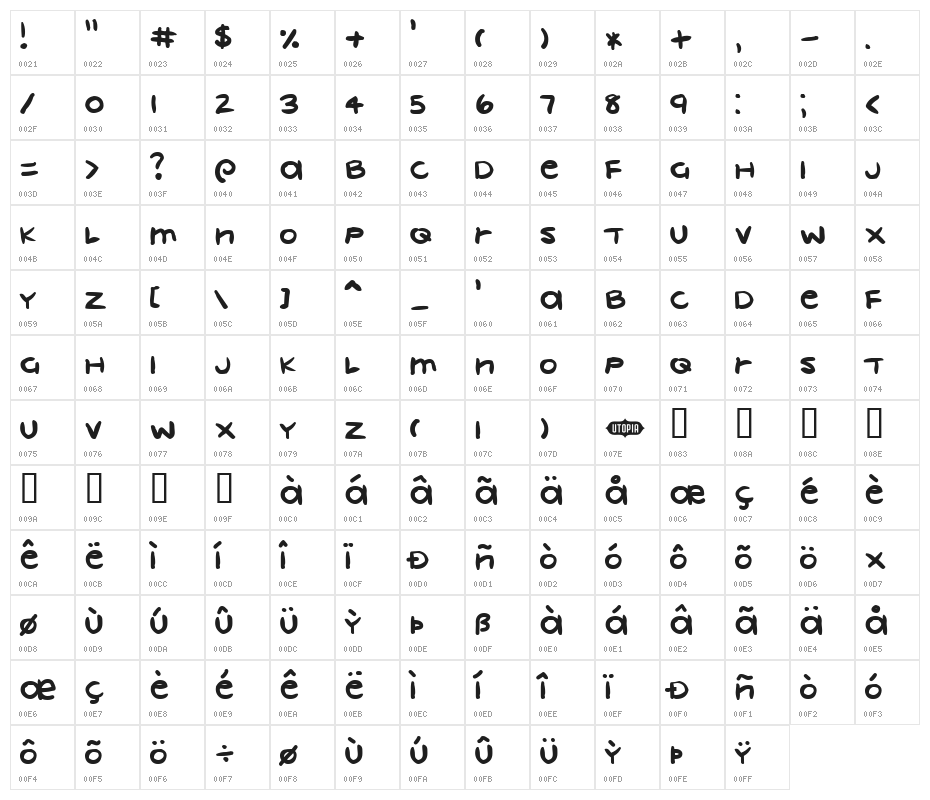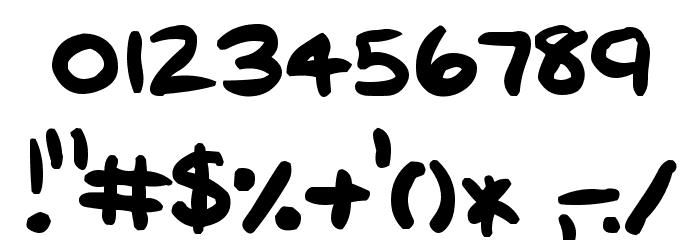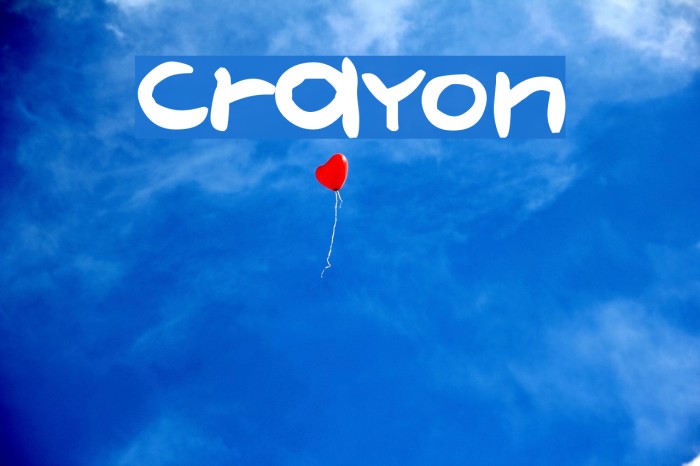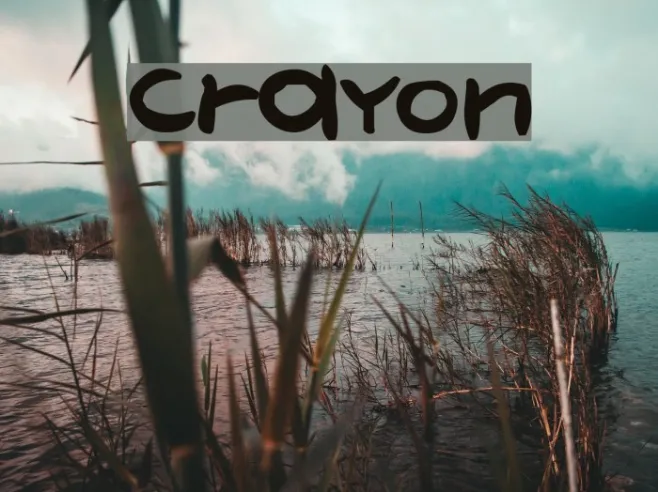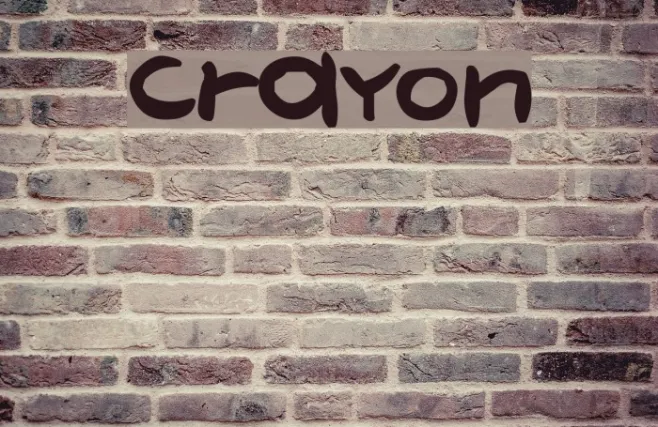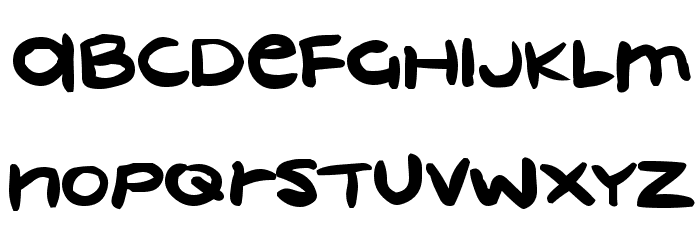
crayon Font
crayon Description
This playful and bold font features a hand-drawn, crayon-like appearance that exudes a sense of fun and creativity. The letters are rounded and slightly irregular, giving them a casual and informal feel. The strokes are thick and consistent, which makes the characters highly legible even at smaller sizes. The font includes a full set of uppercase and lowercase letters, numbers, and a variety of special characters, making it versatile for different design needs. Its whimsical style is perfect for projects that aim to convey a sense of joy and playfulness.
| Overall Style | Playful |
| Proposed Projects | Ideal for children's books, playful branding, educational materials, and creative posters. |